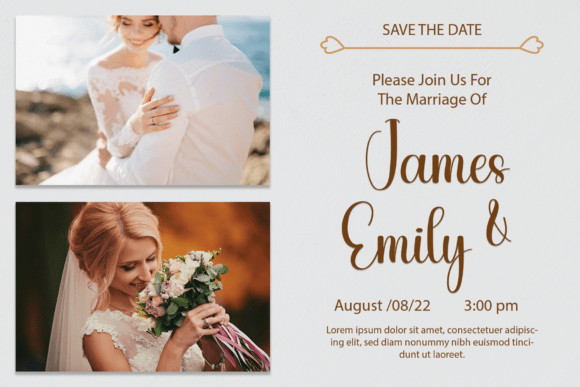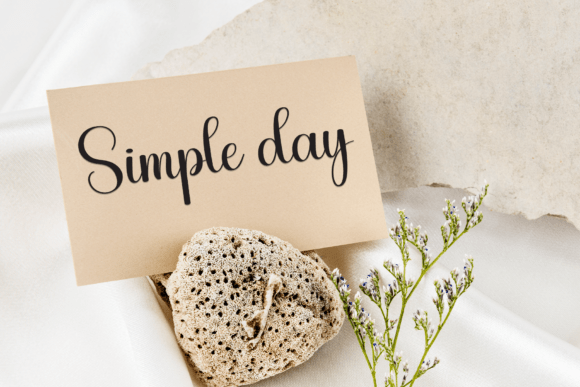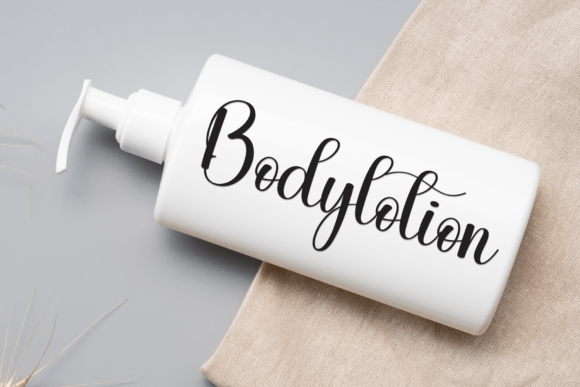
Introduction to Santaday Font
Immerse yourself in the alluring world of design with our curator-made display font.
Meticulously handcrafted, this mesmerizing typeface uniquely unites finesse and ease in every curve It lends an individualistic persona to your projects, infusing an element of enchantment and vivacity into your top-tier work.
Key Features of Santaday Font